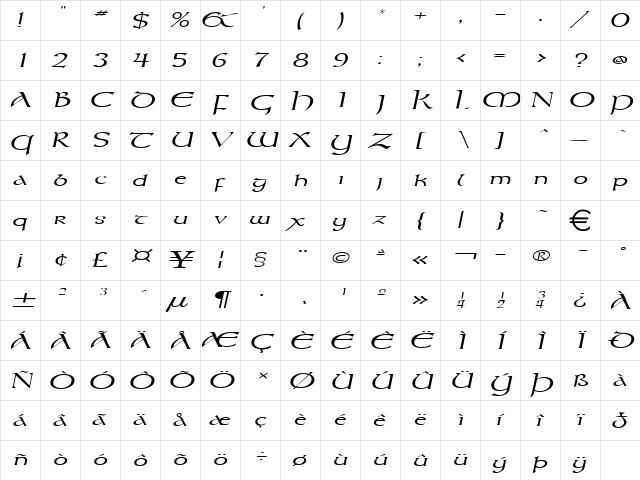
KeltExtended Italic
Design Context for KeltExtended Typeface
KeltExtended is a composed and adaptable typeface that performs quietly and consistently across a wide range of design contexts. The dynamic lean of this cut emphasises speed and emphasis in any layout.